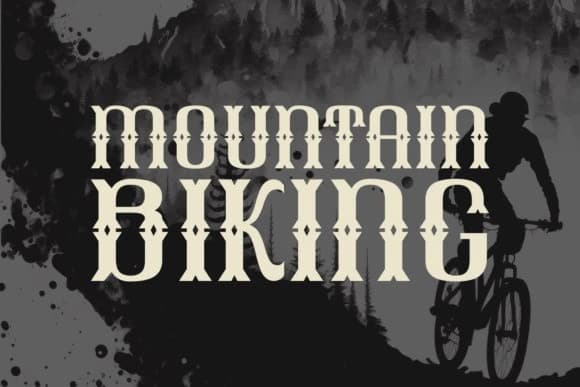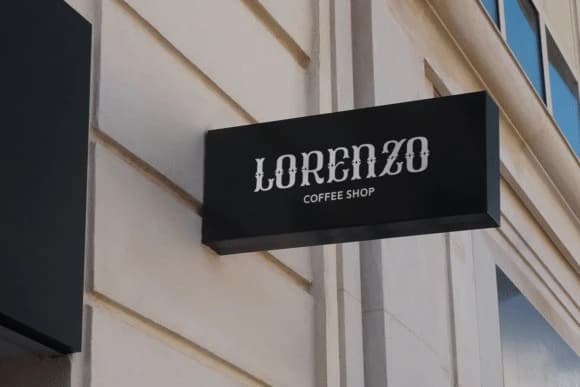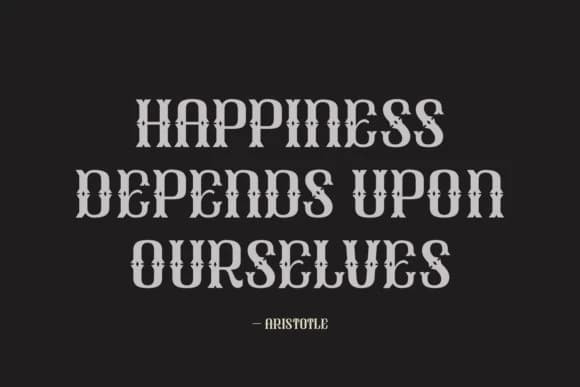
Classic Basics Font
Classic Basics Font, a unique font that combines the characteristics of Blackletter and Vintage aesthetics. Kneaded with the well-aged charm of Old Style and Grunge fonts, ‘Classic Basics’ is a clean brushstroke of creativity as refreshing as a crafter’s dream.